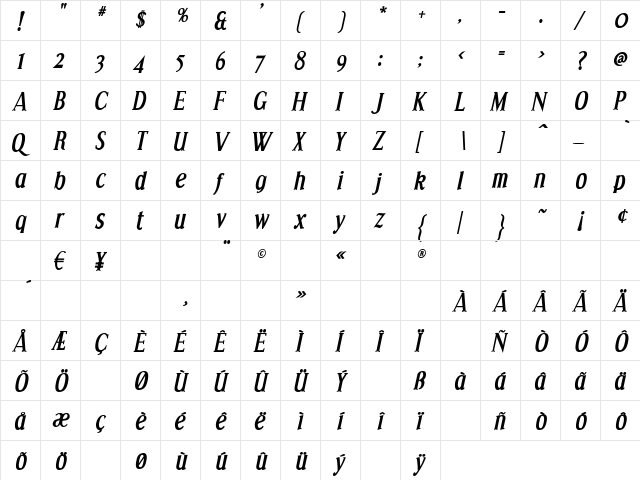
Effloresce Bold Italic
Design Context for Effloresce Typeface
Effloresce offers clean, dependable letterforms without strong stylistic allegiance, making it a practical choice for designers who need flexibility. The slanted form adds forward momentum and visual energy. Its bold stroke weight gives it real presence on the page.
Pro Tip: Use Effloresce for emphasis, pull quotes, and subheadings where its slanted energy can add rhythm to the layout.